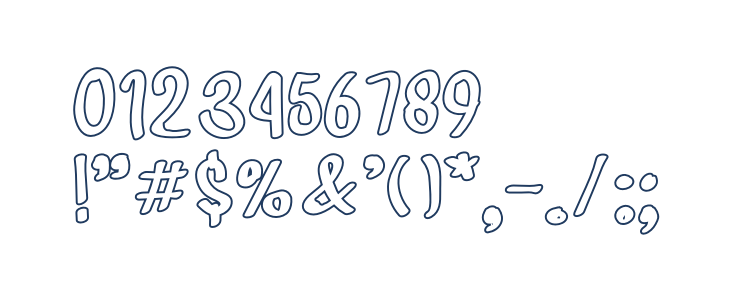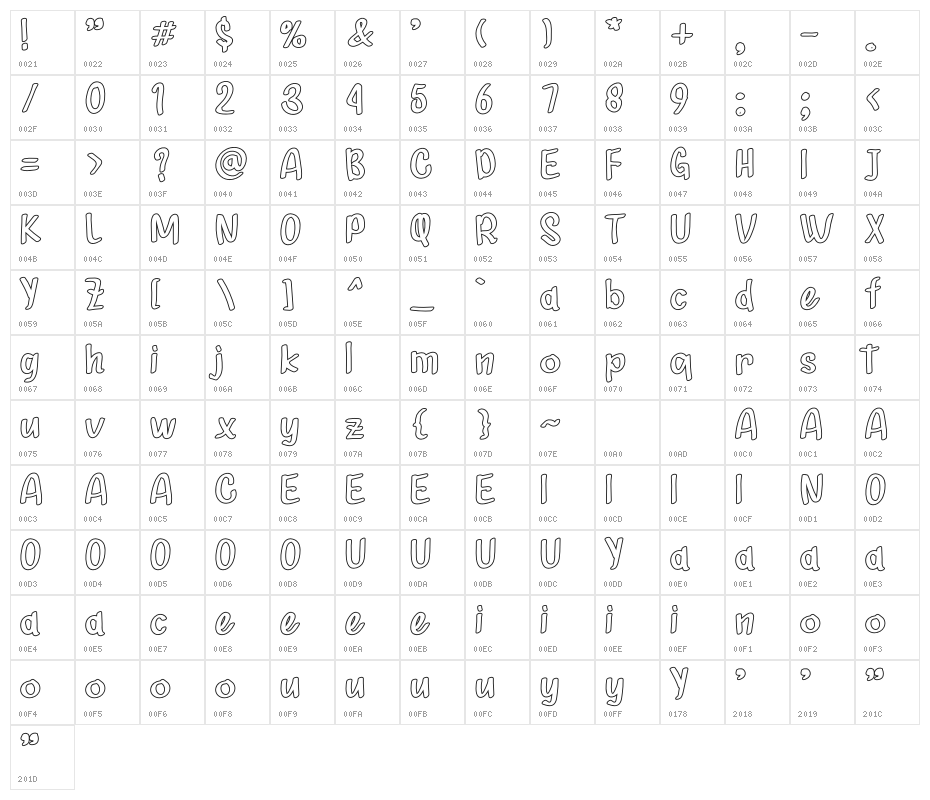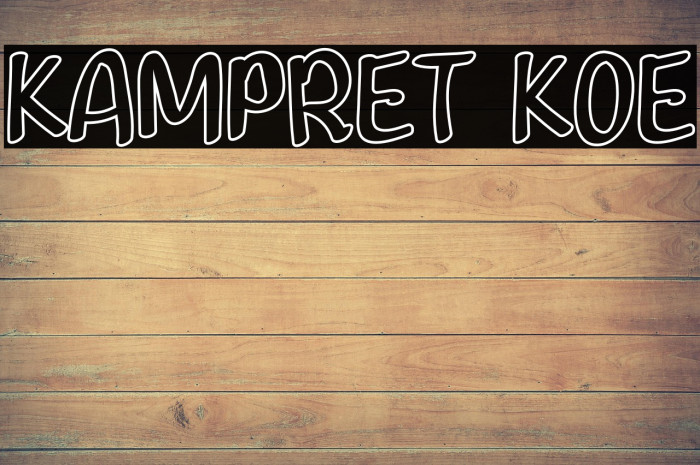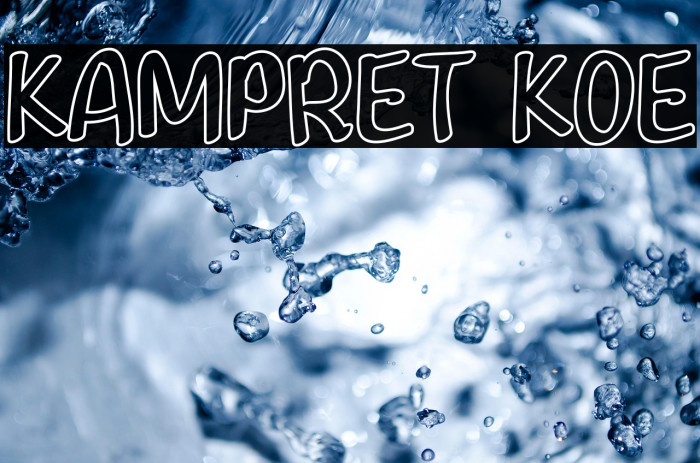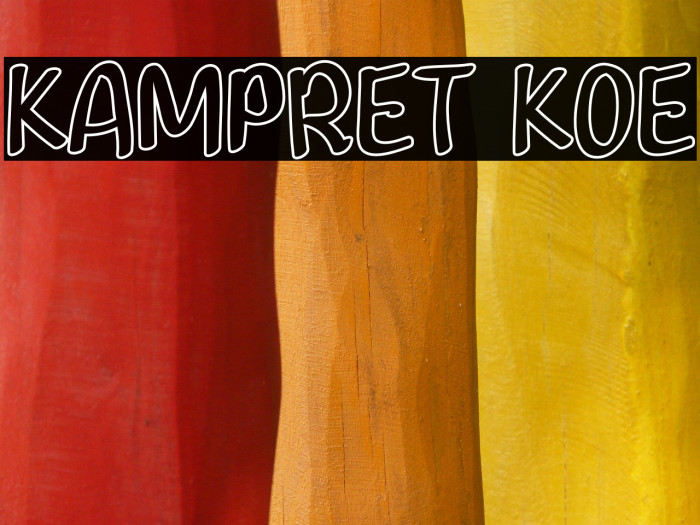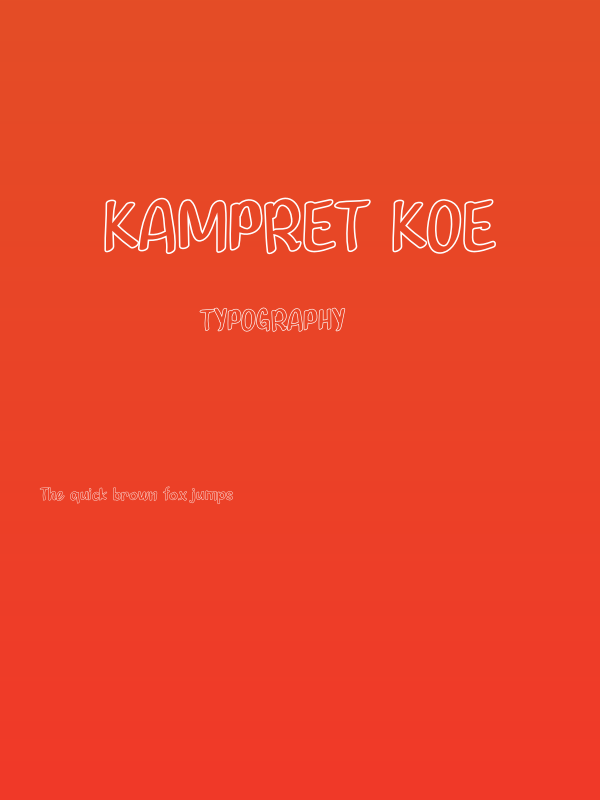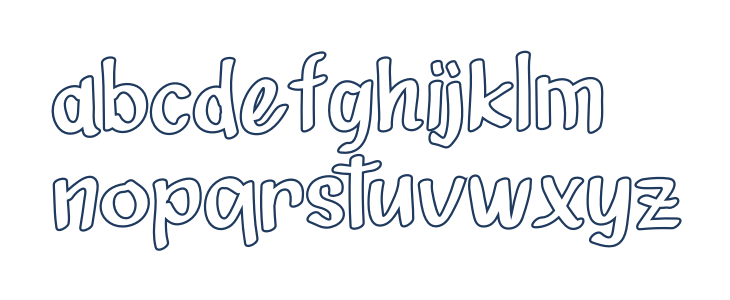
KAMPRET KOE Font
KAMPRET KOE Description
This playful and whimsical font features a bold, hand-drawn style with a cartoonish flair. The characters are outlined, giving them a bubble-like appearance that adds a sense of fun and creativity. The uppercase and lowercase letters maintain a consistent style, with rounded edges and a slightly irregular form that enhances the casual, informal look. Numbers and special characters follow the same design principles, ensuring a cohesive appearance across all elements. The font's unique style makes it ideal for projects that require a touch of humor and lightheartedness.
| Overall Style | Playful, Whimsical, Cartoonish |
| Use Case | Headlines, Posters, Branding |
| Proposed Projects | Ideal for children's books, comic strips, playful branding, and creative posters. |